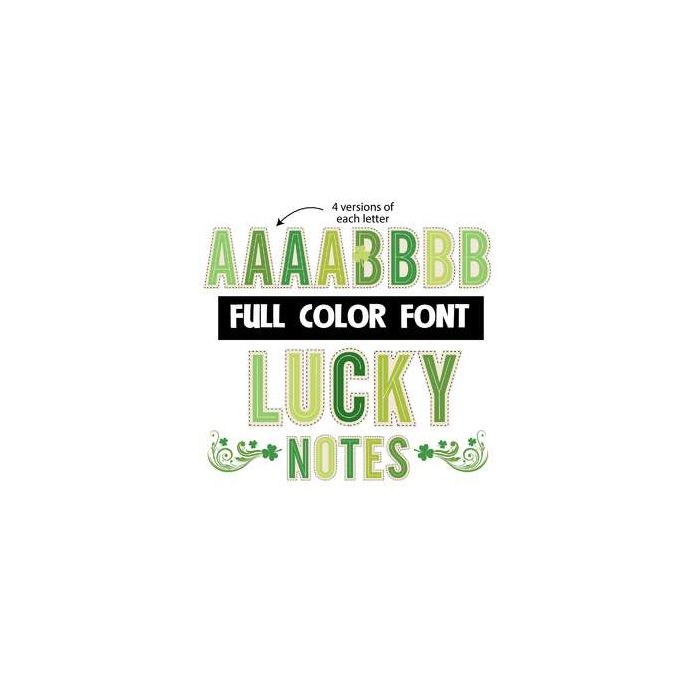
This pretty full-color font features blocky, sans serif lettering with some shamrocks here and there. There is a fun swirls you can add to your words by typing the triangle bracket glyphs. This font works best for titles, displays, posters and more. Please note color fonts will show as black in non compatible programs. This font type is compatible with Silhouette Studio